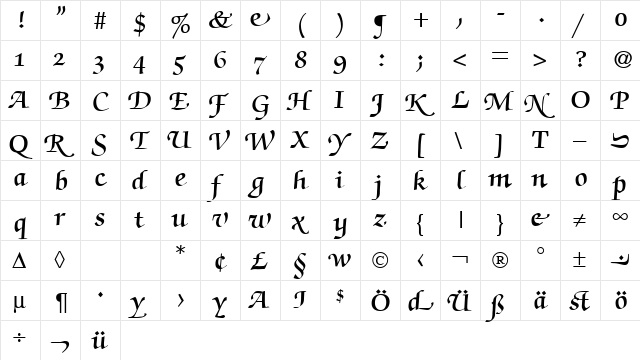
ZabriskieScriptSwashDemi DB Regular
Design Context for ZabriskieScriptSwashDemi DB Typeface
ZabriskieScriptSwashDemi DB flows with the natural rhythm of handwritten lettering, making it ideal for designs that call for warmth and personal expression.
Font Pairing: Combine ZabriskieScriptSwashDemi DB with a simple geometric sans for maximum contrast — the tension between flowing curves and clean structure is a classic typographic pairing.
Pro Tip: Use ZabriskieScriptSwashDemi DB for short runs of text — names, titles, or taglines. Extended body copy in script faces tires the eye quickly.